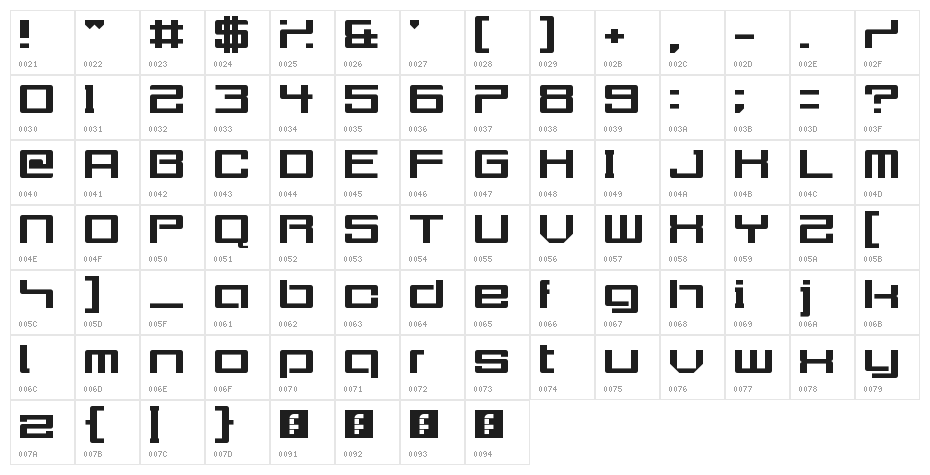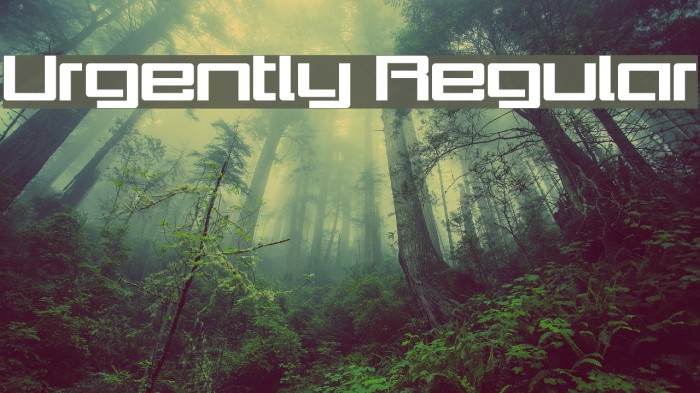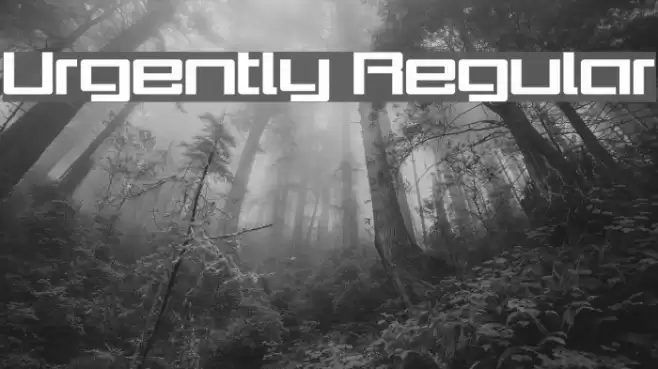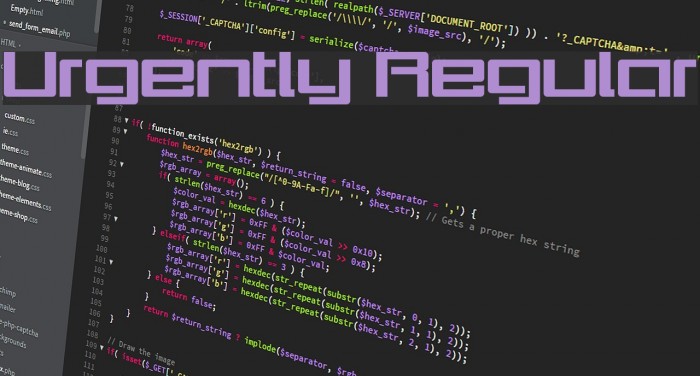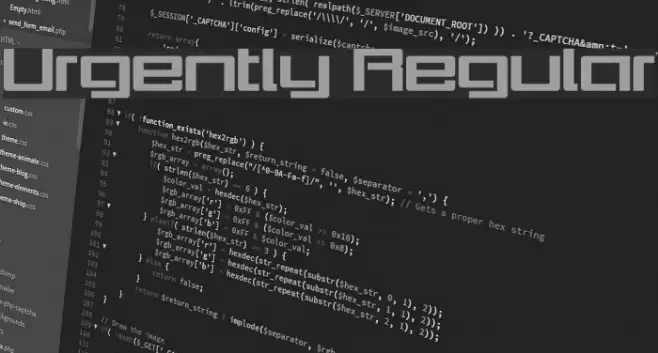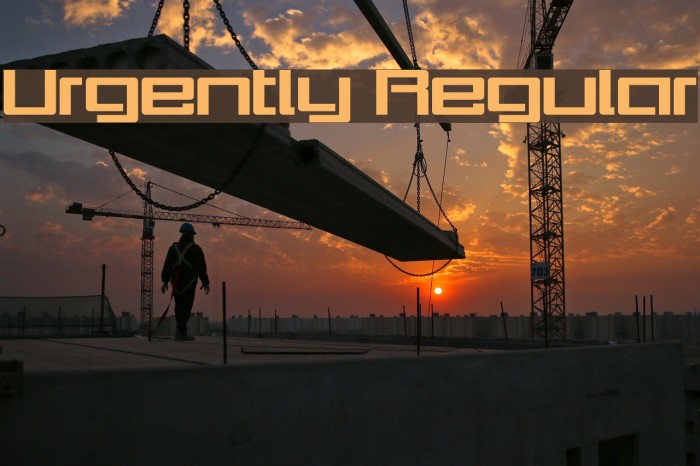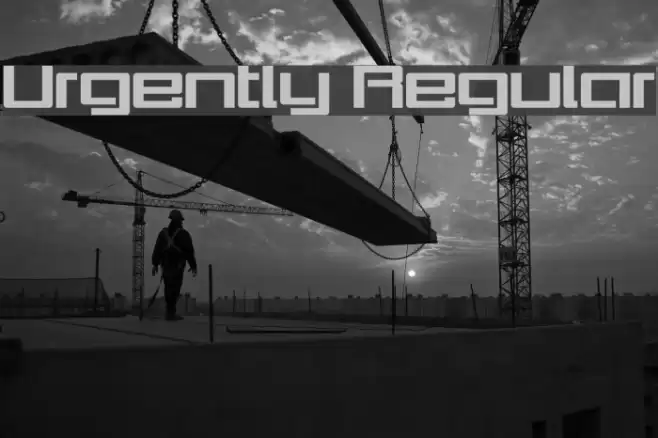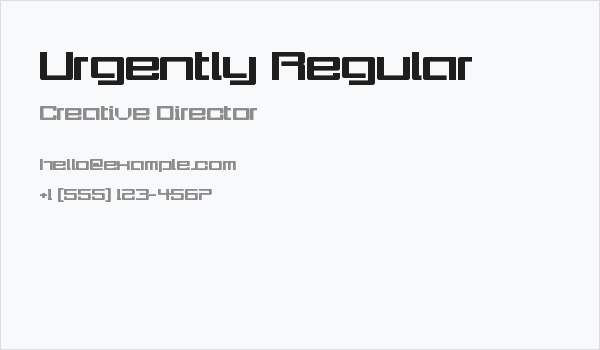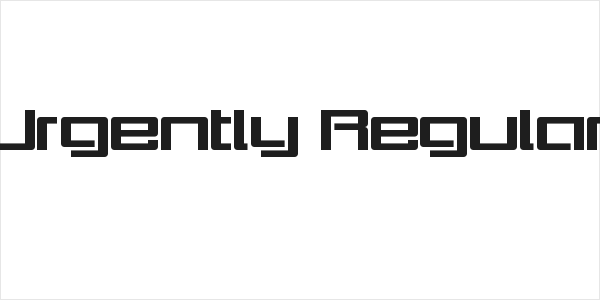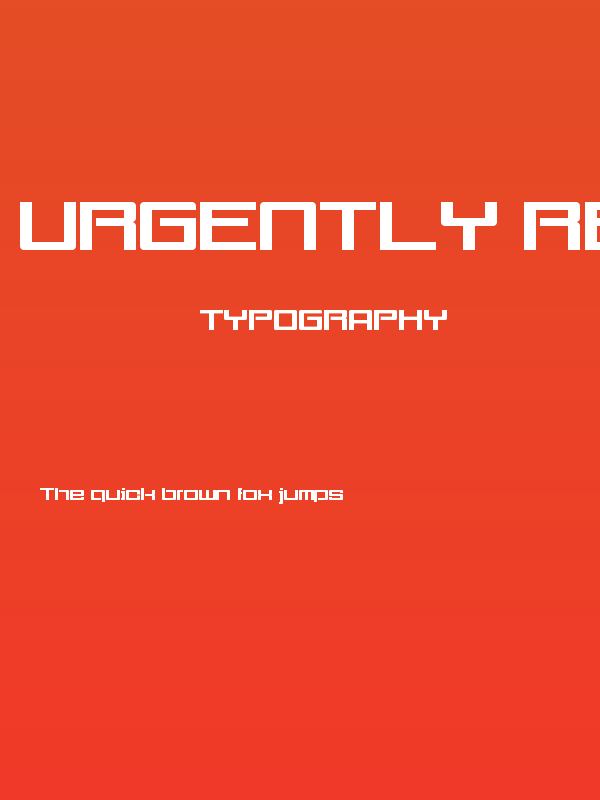
Urgently Regular Font
Urgently Regular Description
This font features a bold, geometric design with a modern, futuristic aesthetic. The characters are constructed with thick, uniform strokes, giving them a strong and impactful presence. The angular shapes and straight lines create a sense of precision and order, while the consistent stroke width throughout the characters adds to its boldness. The uppercase and lowercase letters maintain a similar structure, enhancing readability and cohesion. The numerals and special characters are designed to match the overall style, ensuring a seamless visual experience. This font is ideal for projects that require a contemporary and assertive look.